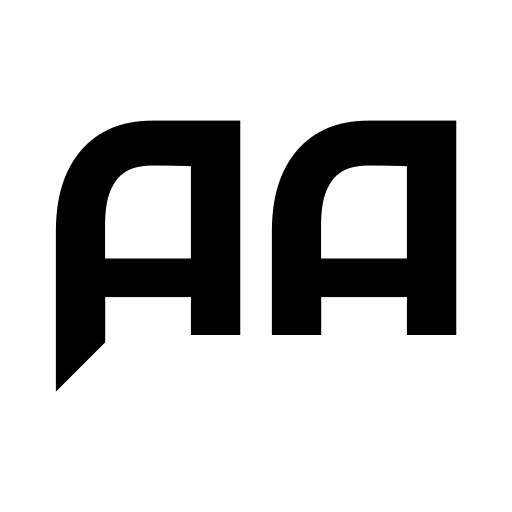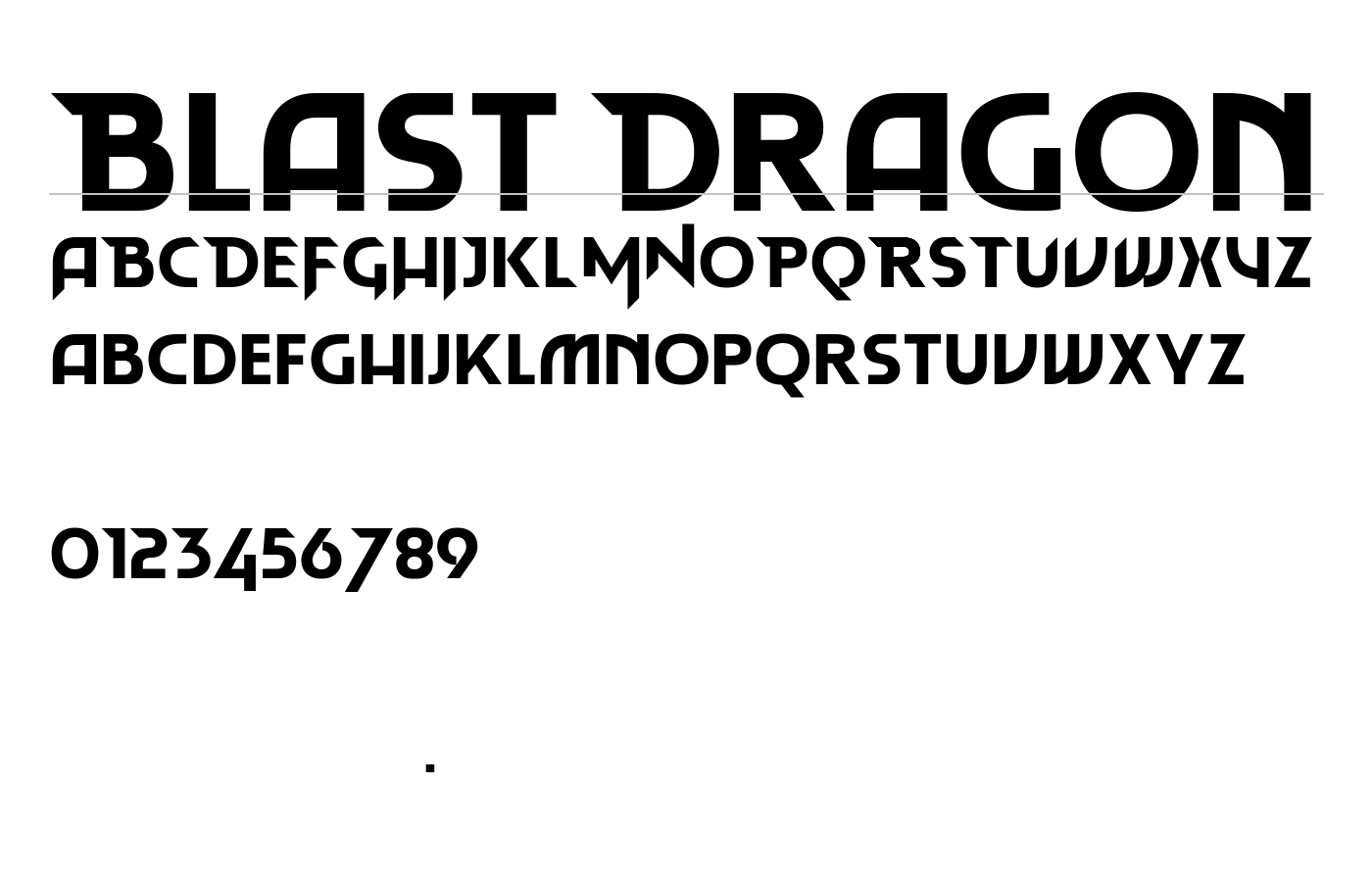
Blast Dragon is a bold, futuristic sans serif font with strong geometric shapes and sharp, angled details that give it a dynamic, tech-inspired look. Its distinctively stylized letterforms make it perfect for eye-catching headlines, logos, and branding in gaming, sci-fi, and modern digital designs where a powerful, adventurous vibe is needed.
Blast Dragon Font
About Blast Dragon Font